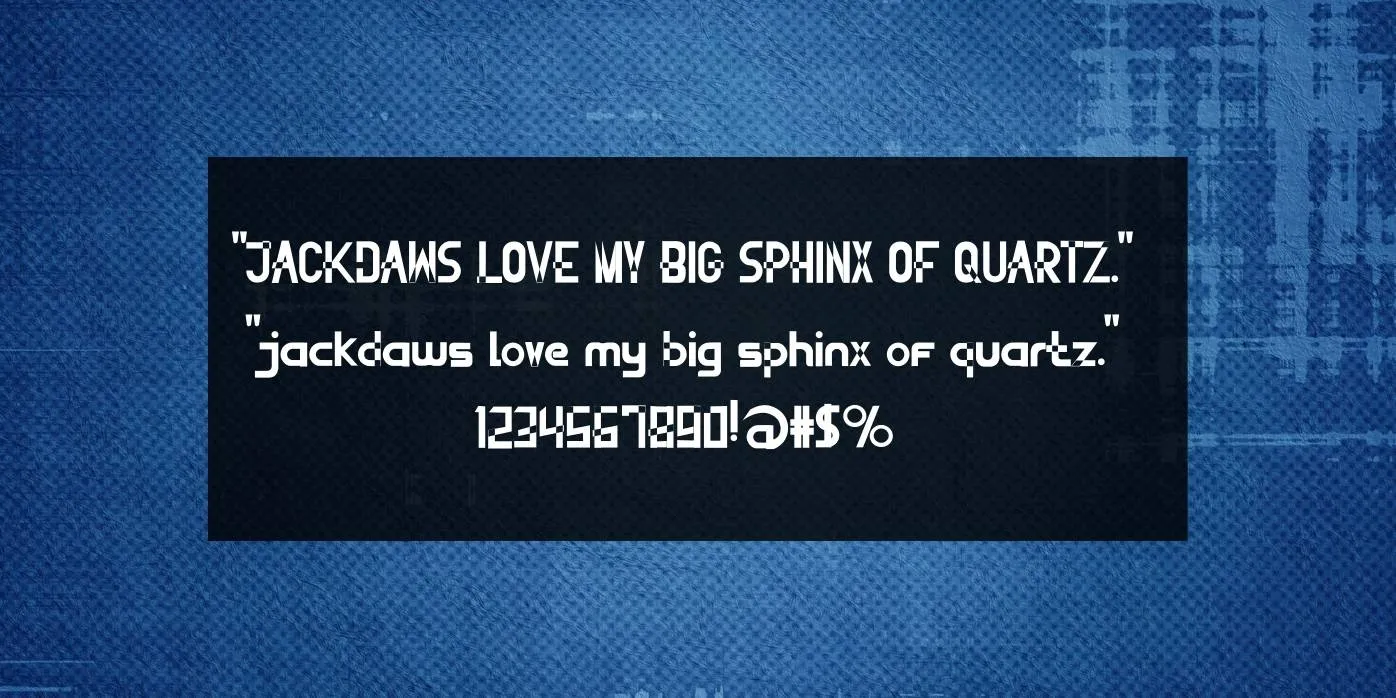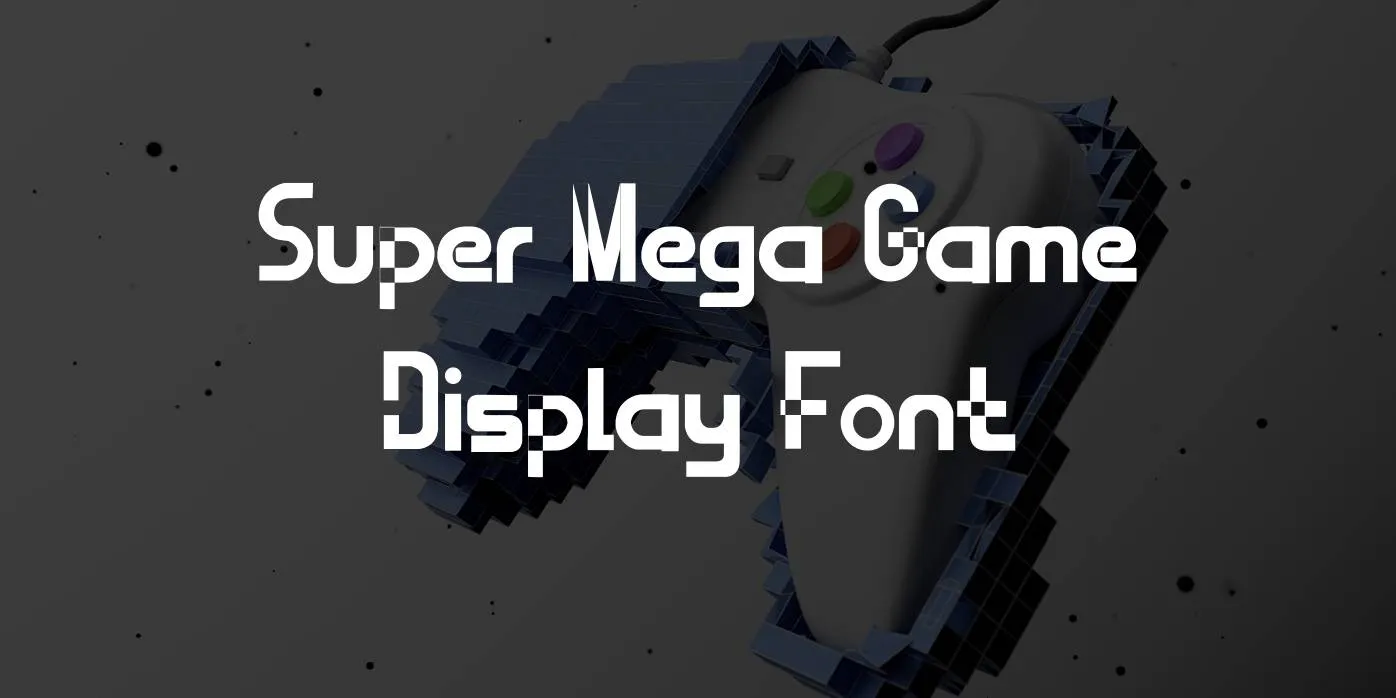
Super Mega Game Display Font
Here, we present Super Mega Game Display Font which belongs to the display family. This typeface was developed by Erik Studio. The idea behind this tremendous and stylish font was to create a font that would work well for video game interfaces. The result is a sharp and clean font that is perfect for use in video games or other digital media.
This classy font comes in two styles, Regular and Bold. Each style has 256 characters, which includes all the standard Latin characters as well as some international characters. This typeface is not a part of google fonts. Another similar font which is the freshman font is perfect for different designs.
The Super Mega Game Display Typeface also supports multiple languages, including English, Spanish, and French. The online text generator tool of this family is very beneficial for all graphic projects.